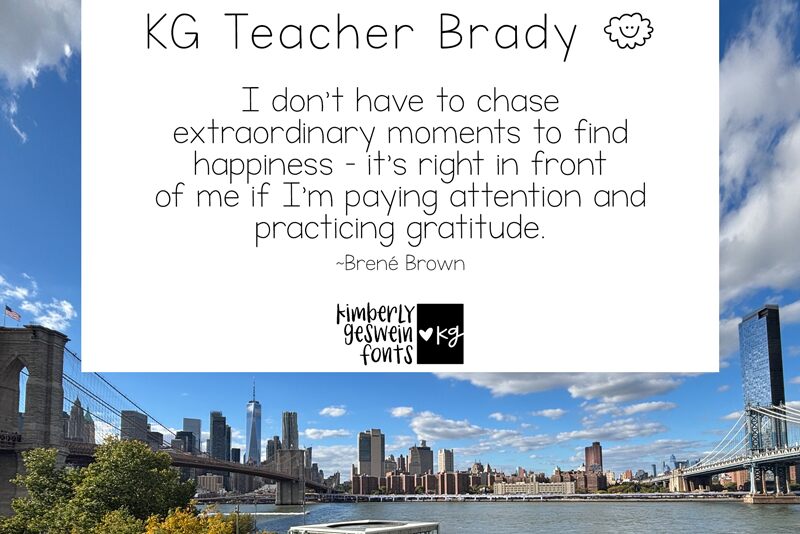
KG Teacher Brady font family by Kimberly Geswein is a free font script typeface, which contains 2 font styles. The simple and clean typeface reinterprets the unique handwriting of Brady, their son, creating a modern font with an informal and friendly feel. It is minimalistic, approachable, and very easy to read, with a style that seeks to capture the purity of what handwriting can be.
The human-like nature of this free font makes it suitable for use in lots of educational material. It suits educational toys and games, posters and banners for school events, and teachers’ handouts for students. It is also perfect for usage in comic books, children’s storybooks, stationery designs, and more.